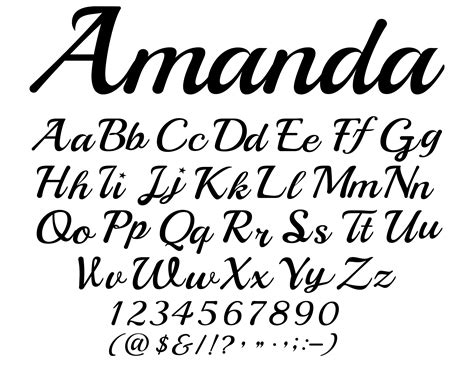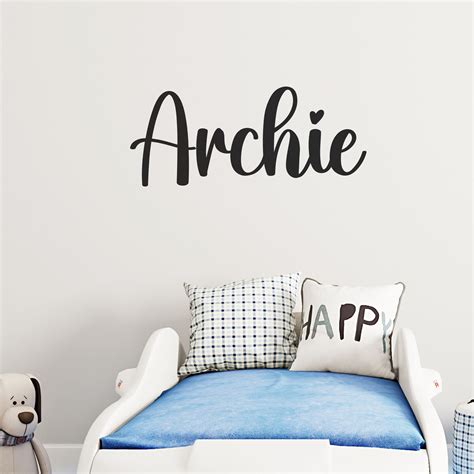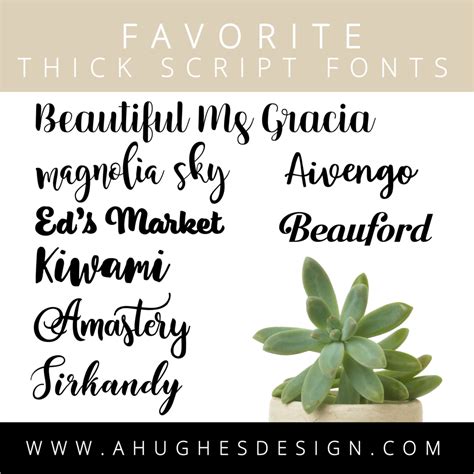
In the world of typography, the choice of font can significantly impact the overall aesthetic and readability of a design. One style that has gained considerable attention is the thick cursive font. This font style combines the elegance of cursive writing with the boldness of thick strokes, making it a popular choice for various design projects. Whether you're creating invitations, logos, or digital art, a thick cursive font can add a touch of sophistication and uniqueness.
Understanding Thick Cursive Fonts
A thick cursive font is characterized by its bold, flowing lines that mimic handwritten script. The thickness of the strokes adds a sense of weight and presence, making the text stand out. This font style is often used in designs where a personal, yet bold, touch is desired. Thick cursive fonts are versatile and can be used in both digital and print media.
Applications of Thick Cursive Fonts
Thick cursive fonts are widely used in various design applications due to their distinctive appearance. Here are some common uses:
- Invitations and Greeting Cards: The elegant and personal touch of a thick cursive font makes it ideal for wedding invitations, birthday cards, and other special occasion invitations.
- Logos and Branding: Businesses often use thick cursive fonts in their logos to convey a sense of elegance and uniqueness. This font style can help a brand stand out in a competitive market.
- Digital Art and Graphics: In digital art, thick cursive fonts can add a personal and artistic flair to designs. They are often used in illustrations, posters, and social media graphics.
- Typography Projects: Designers and typographers often experiment with thick cursive fonts to create visually appealing typography projects. These projects can range from posters to book covers.
Choosing the Right Thick Cursive Font
Selecting the right thick cursive font depends on the specific needs of your project. Here are some factors to consider:
- Legibility: Ensure that the font is easy to read, especially if it will be used in small sizes or on digital screens.
- Style and Aesthetic: Choose a font that matches the overall style and aesthetic of your project. Some thick cursive fonts have a more formal look, while others are more casual.
- Versatility: Consider how versatile the font is. Some thick cursive fonts can be used in a variety of contexts, while others are more specialized.
Here is a table that outlines some popular thick cursive fonts and their characteristics:
| Font Name | Characteristics | Best Used For |
| Great Vibes | Elegant, flowing lines with a modern touch | Wedding invitations, logos, and digital art |
| Dancing Script | Bold, playful strokes with a handwritten feel | Greeting cards, posters, and social media graphics |
| Allura | Sophisticated, elegant lines with a classic touch | Formal invitations, book covers, and typography projects |
| Satisfy | Bold, thick strokes with a retro feel | Vintage-inspired designs, logos, and digital art |
Designing with Thick Cursive Fonts
When designing with thick cursive fonts, there are several best practices to keep in mind:
- Pairing with Other Fonts: Thick cursive fonts often work well when paired with simpler, more straightforward fonts. This contrast can enhance the overall design and make the text more readable.
- Color and Contrast: Choose colors that complement the thick cursive font and provide enough contrast to ensure readability. Darker colors on lighter backgrounds or vice versa can help the text stand out.
- Spacing and Alignment: Pay attention to the spacing and alignment of the text. Proper spacing can prevent the text from looking cluttered, while alignment can enhance the overall aesthetic.
Here are some examples of how to effectively use thick cursive fonts in different design contexts:
- Invitations: Use a thick cursive font for the main text to create a personal and elegant touch. Pair it with a simpler font for additional information to ensure readability.
- Logos: Choose a thick cursive font that reflects the brand's personality. Ensure that the font is legible even when scaled down.
- Digital Art: Experiment with different colors and effects to make the thick cursive font stand out. Use it as a focal point in your design.
📝 Note: When using thick cursive fonts in digital media, ensure that the font is optimized for screen readability. Some fonts may look great in print but can be difficult to read on screens.
Creating Custom Thick Cursive Fonts
If you can't find a thick cursive font that perfectly matches your design needs, you can create your own custom font. Here are the steps to create a custom thick cursive font:
- Sketch Your Design: Start by sketching your design on paper. Experiment with different styles and thicknesses to find the look you want.
- Digitize Your Sketch: Use a vector graphics program like Adobe Illustrator or Inkscape to digitize your sketch. This will allow you to create a scalable and editable version of your font.